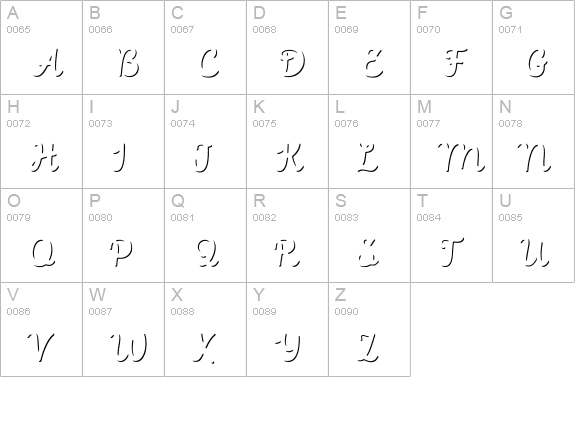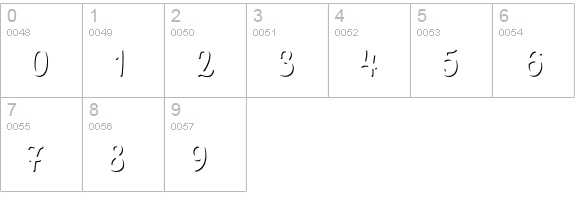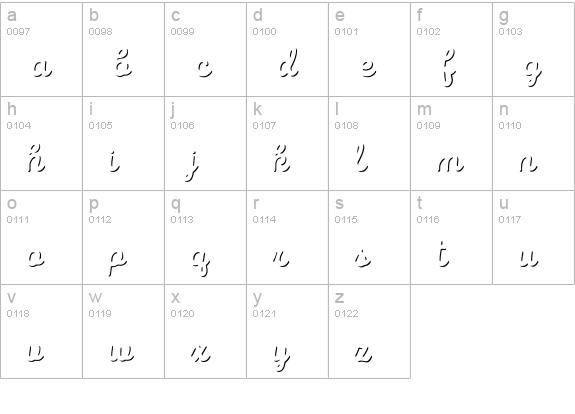
Intro Script R Shade Font Details
The Intro Script R Shade font is a stunning addition to any design project, with its elegant and sophisticated look. This font features beautifully crafted script letters with a shadow effect, adding depth and dimension to your text. Perfect for invitations, branding, posters, and more, Intro Script R Shade exudes a sense of style and class. The best part? This exquisite font is available for free download at FontsMarket.com, making it accessible to all designers and creatives looking to elevate their projects with a touch of elegance. Don't miss out on the opportunity to enhance your designs with the captivating Intro Script R Shade font, now just a click away for your creative endeavors.